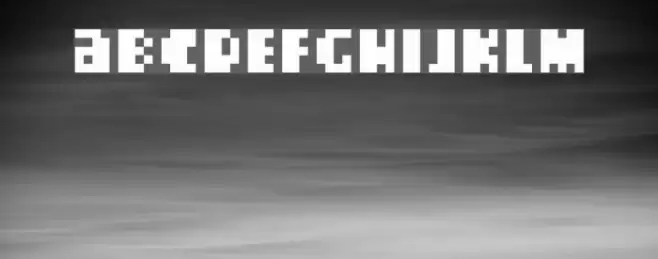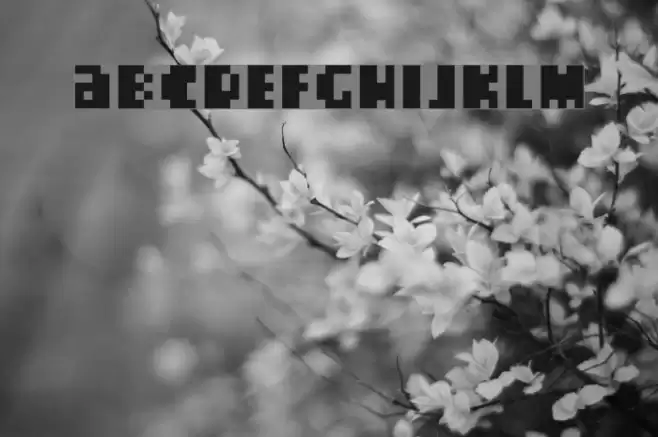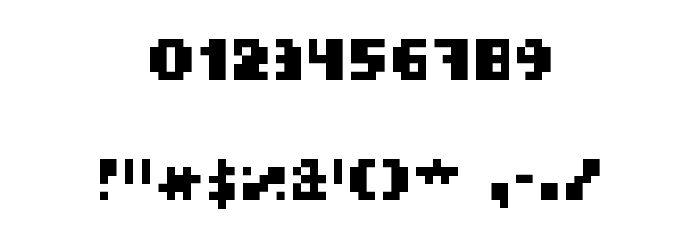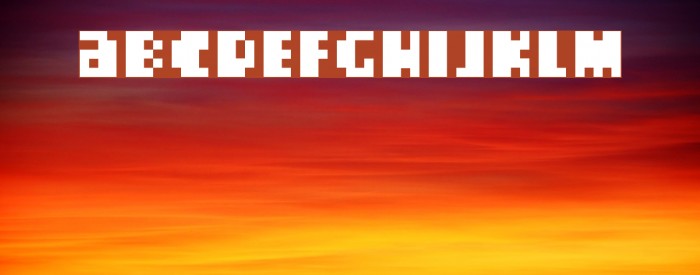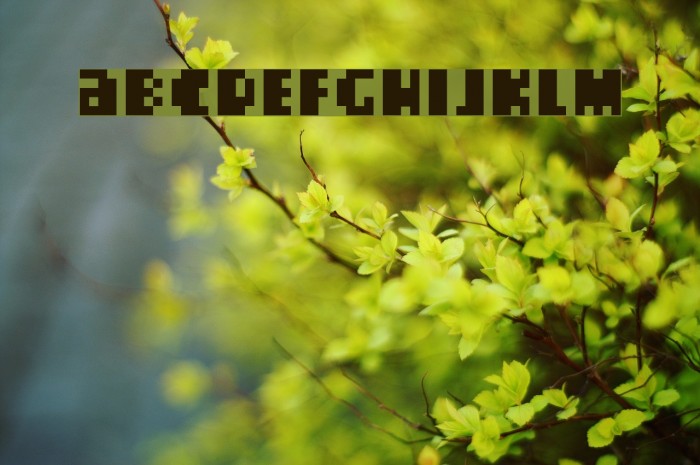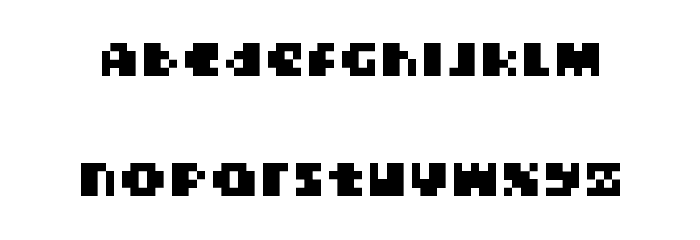
Crackers Regular Font
Crackers Regular Description
This font features a bold, pixelated design reminiscent of early digital displays and retro video games. Each character is constructed with a blocky, geometric style, giving it a distinctly digital and nostalgic feel. The uppercase and lowercase letters maintain a consistent height, contributing to a uniform appearance. Numbers and special characters follow the same pixelated aesthetic, ensuring a cohesive look across all text elements. The font's playful and chunky design makes it ideal for projects that aim to evoke a sense of nostalgia or a retro gaming vibe.
A bold, pixelated font with a retro digital aesthetic from Pixel fonts.
- Proposed Projects: Ideal for retro-themed designs, video game graphics, digital art projects, and nostalgic branding.
- Overall Style: Retro, Digital